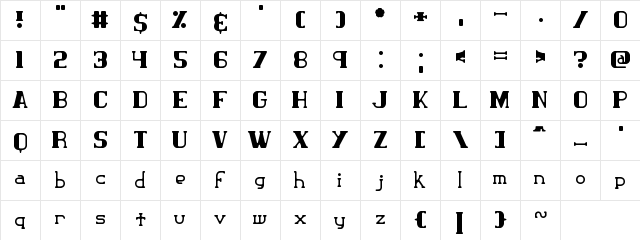
Classic Trash 2 BRK Regular
Design Context for Classic Trash 2 BRK Typeface
Classic Trash 2 BRK wears its vintage influences proudly, with letterforms that recall mid-century signage, classic packaging, and nostalgia-driven design.
Font Pairing: Combine Classic Trash 2 BRK with a simple slab or neutral sans — period-accurate companions reinforce the vintage feel without competing for attention.
Pro Tip: Lean into Classic Trash 2 BRK's period character by pairing it with aged paper textures, muted colour palettes, and vintage illustration styles.